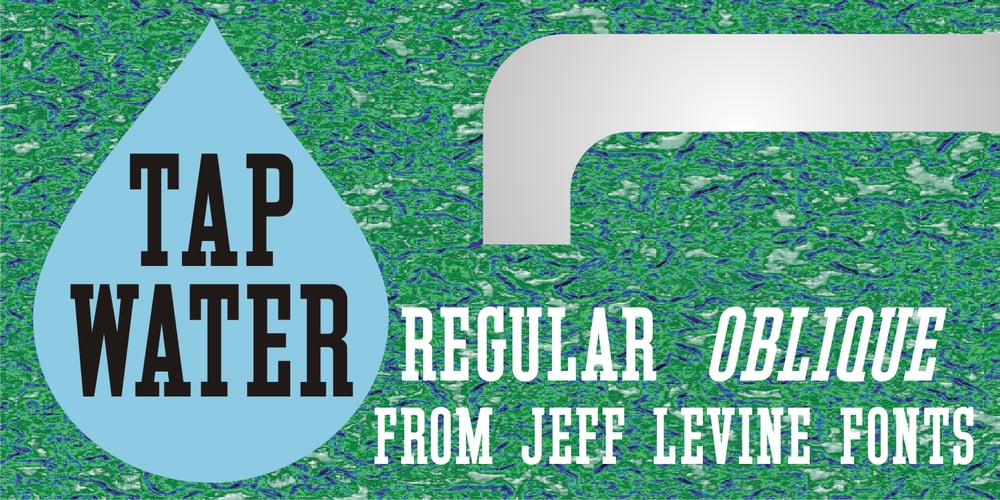
Tap Water JNL
Tap Water JNL font
Tap Water JNL Font Family was designed by Jeff Levine and published by Jeff Levine. Tap Water JNL contains 2 styles and family package options. A WPA (Works Progress Administration) poster for the Rural Electrification Administration’s promoting of running water for rural areas is the basis for Tap Water JNL. A condensed slab serif, it is available in both regular and oblique versions.